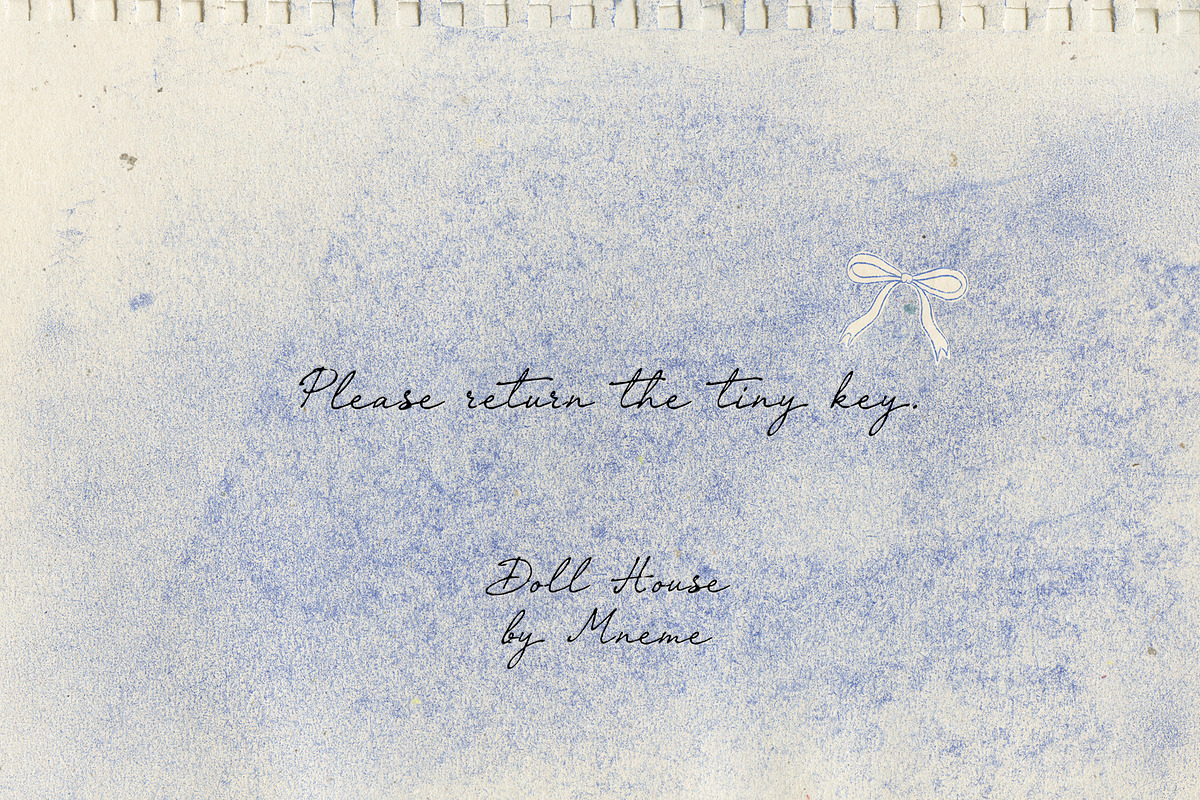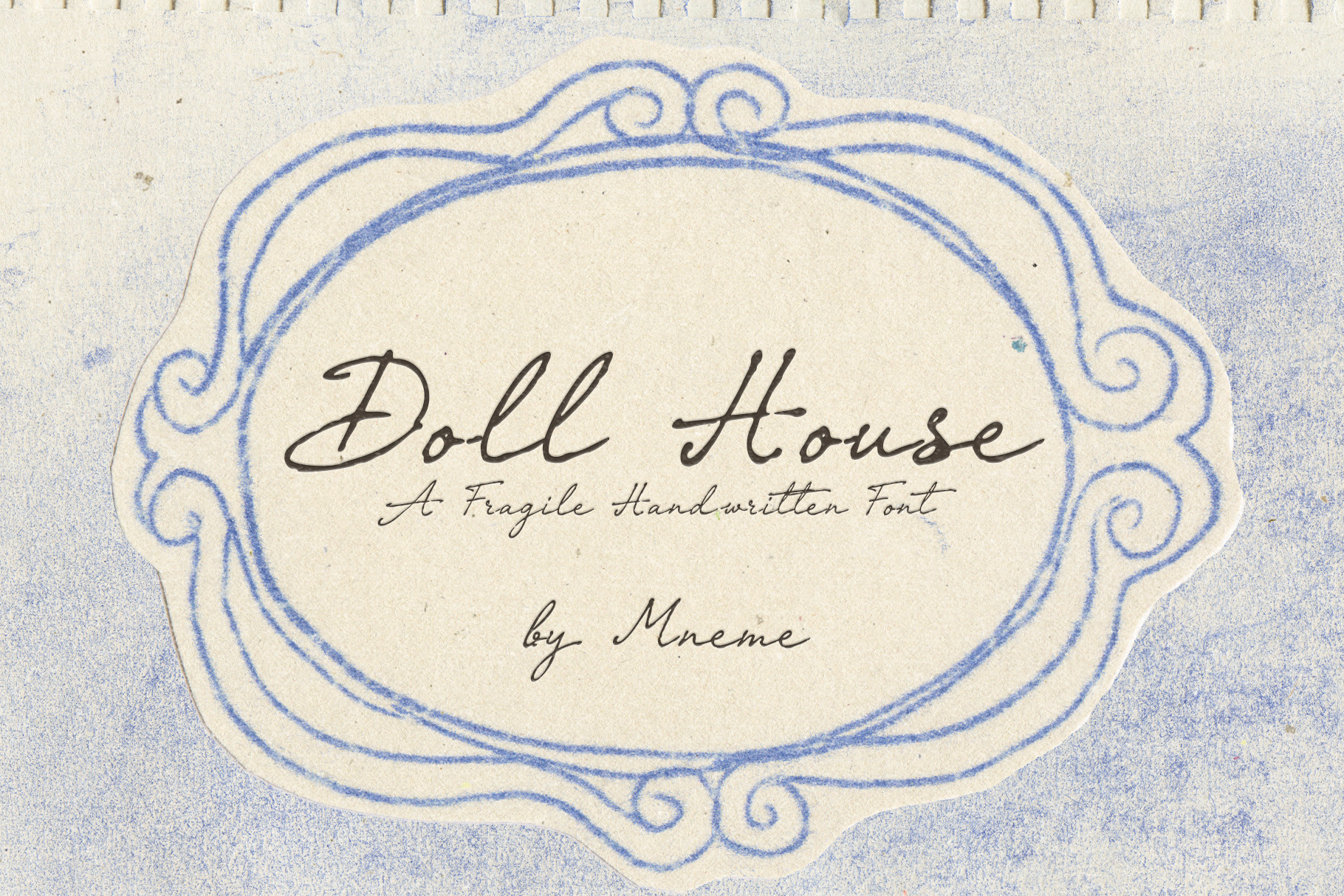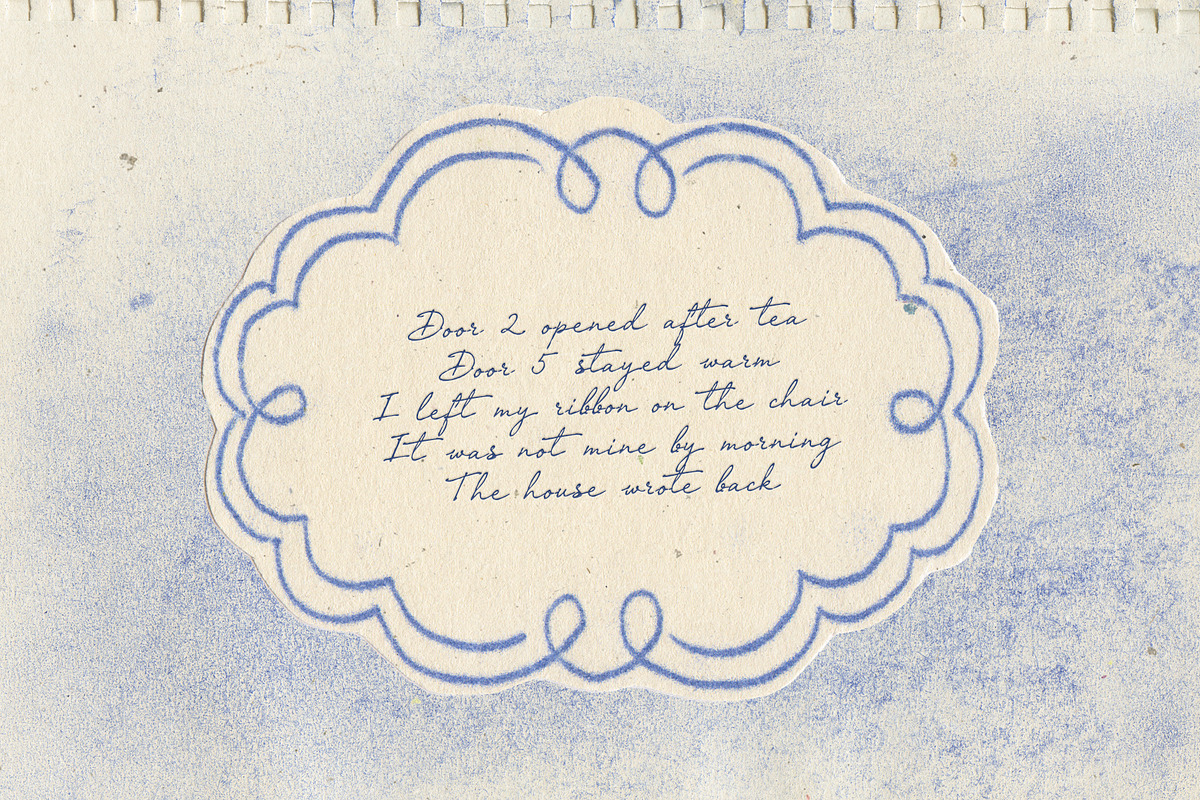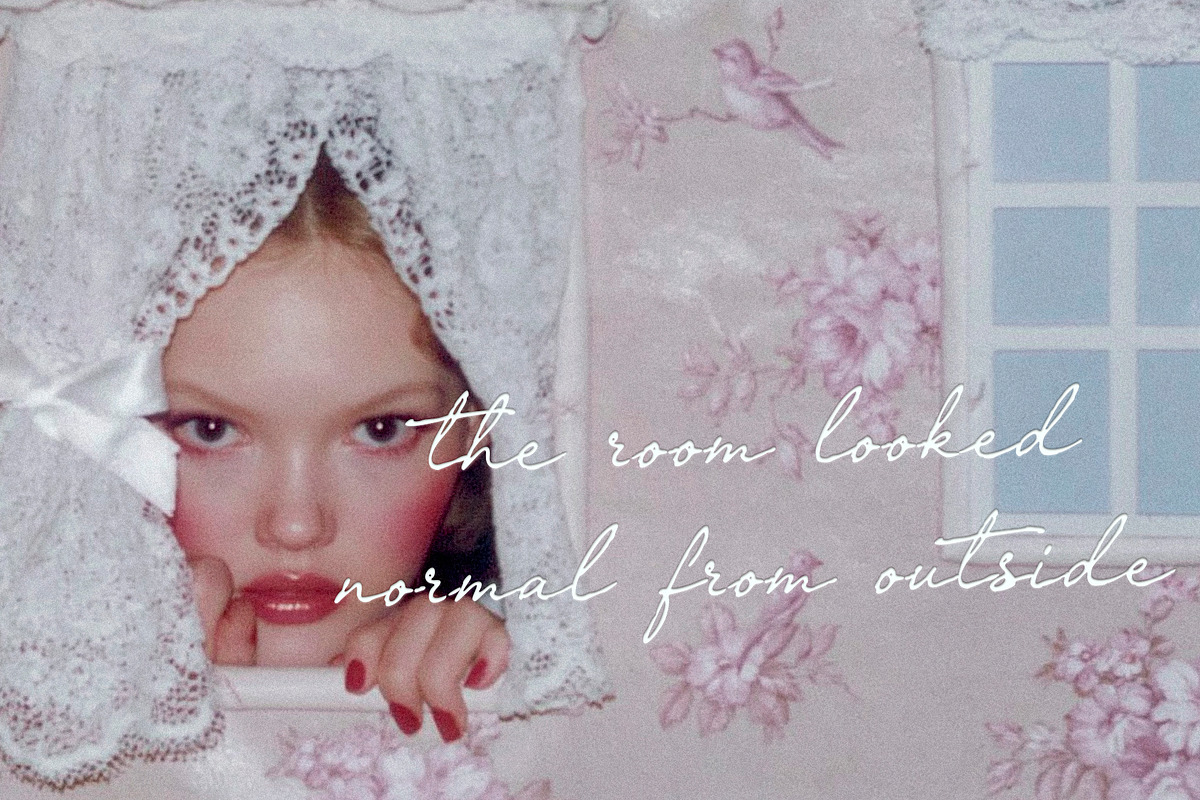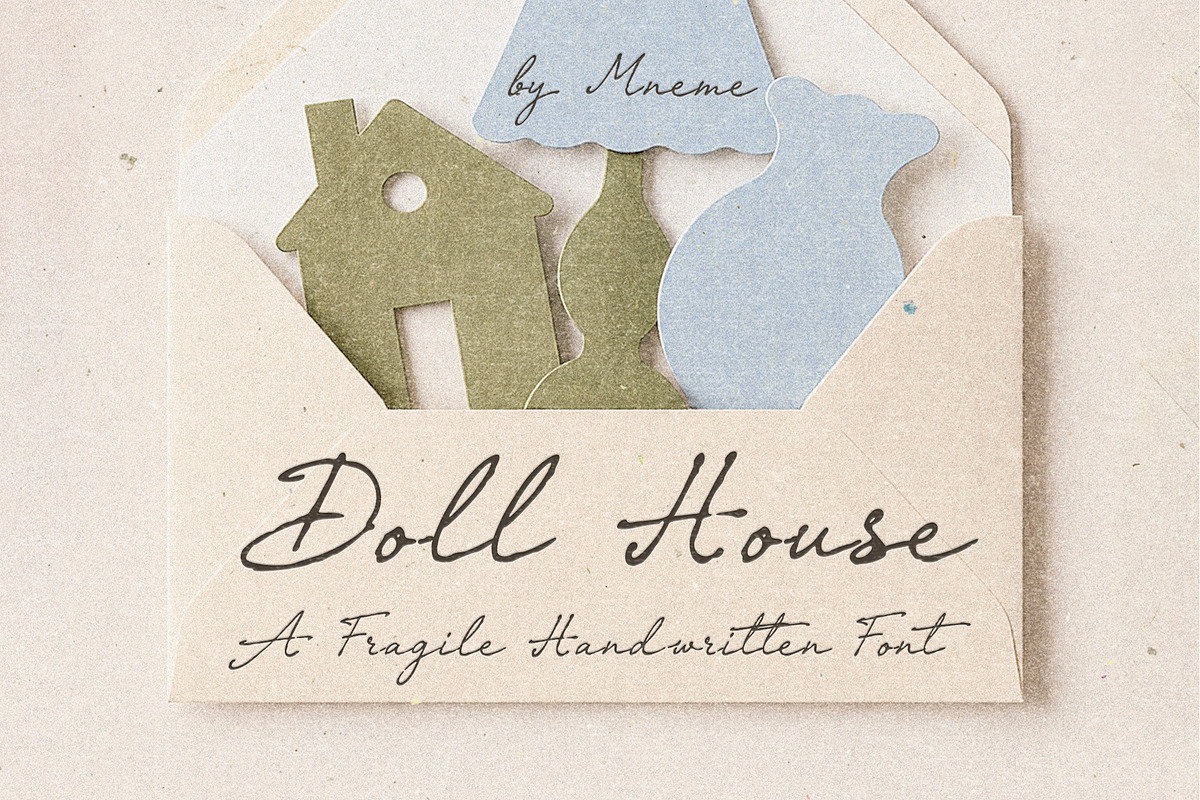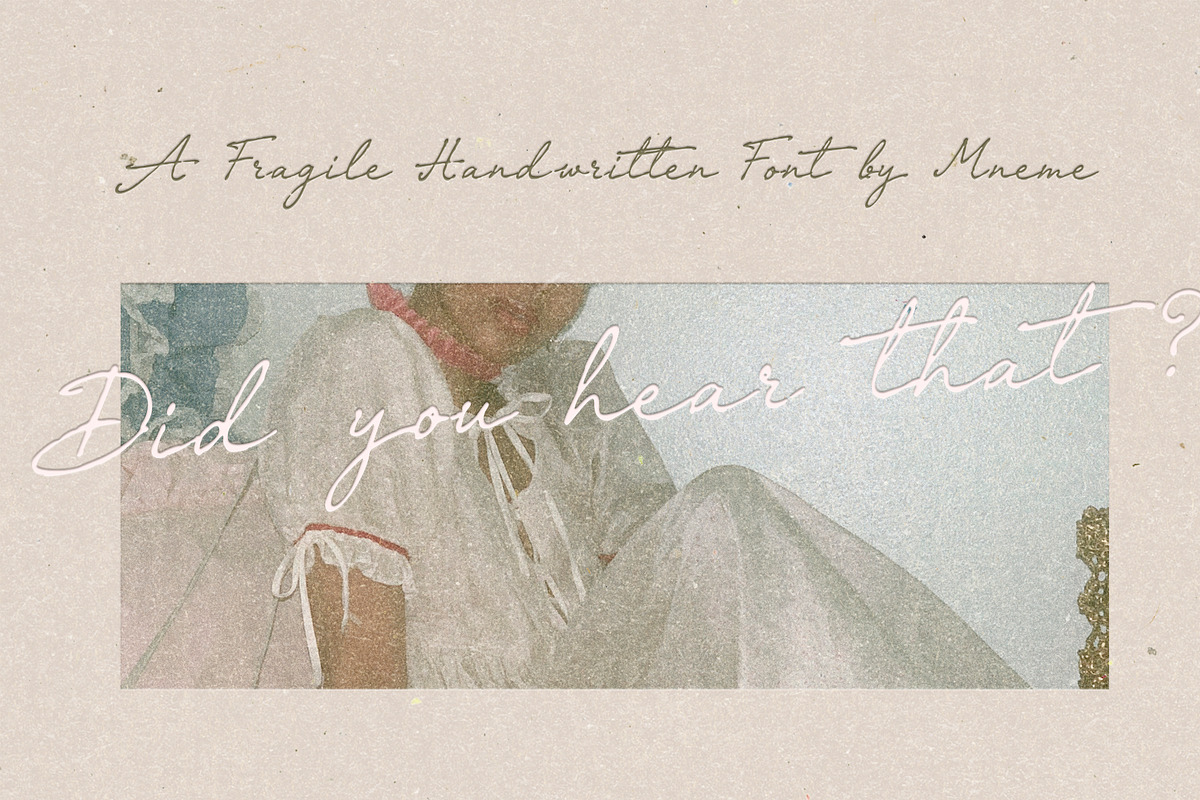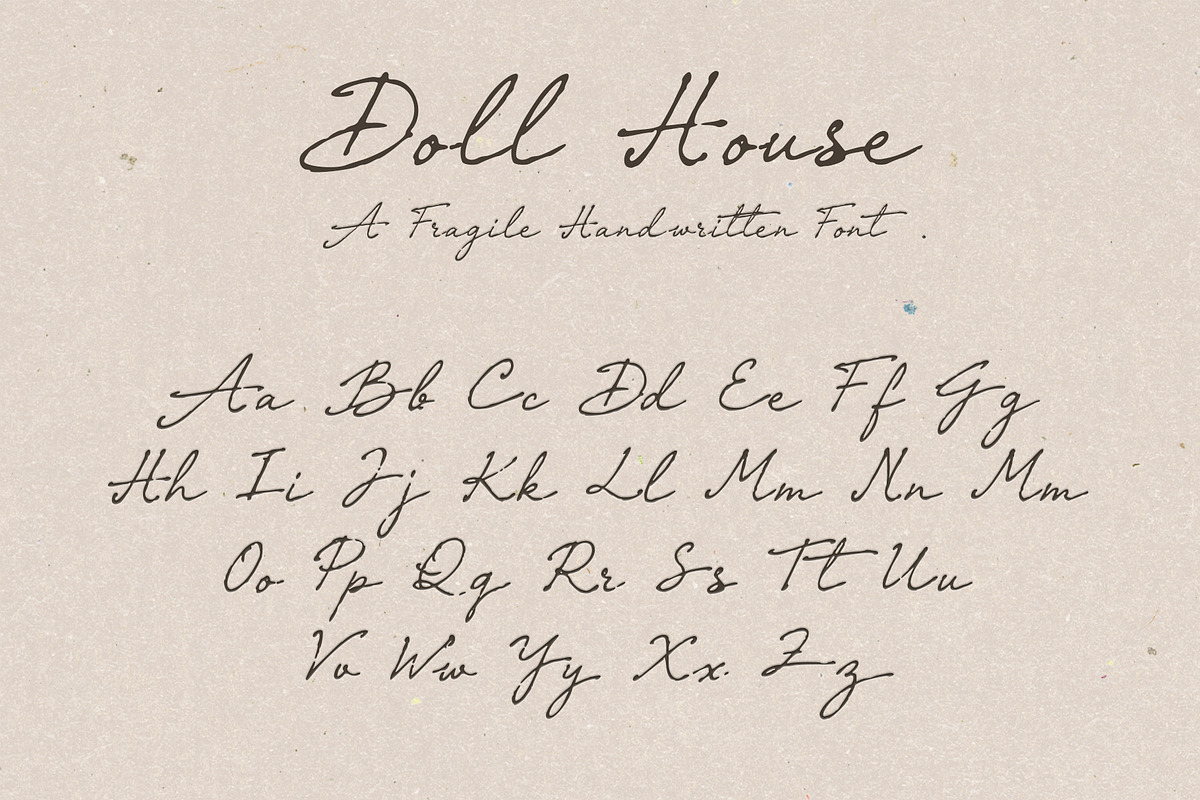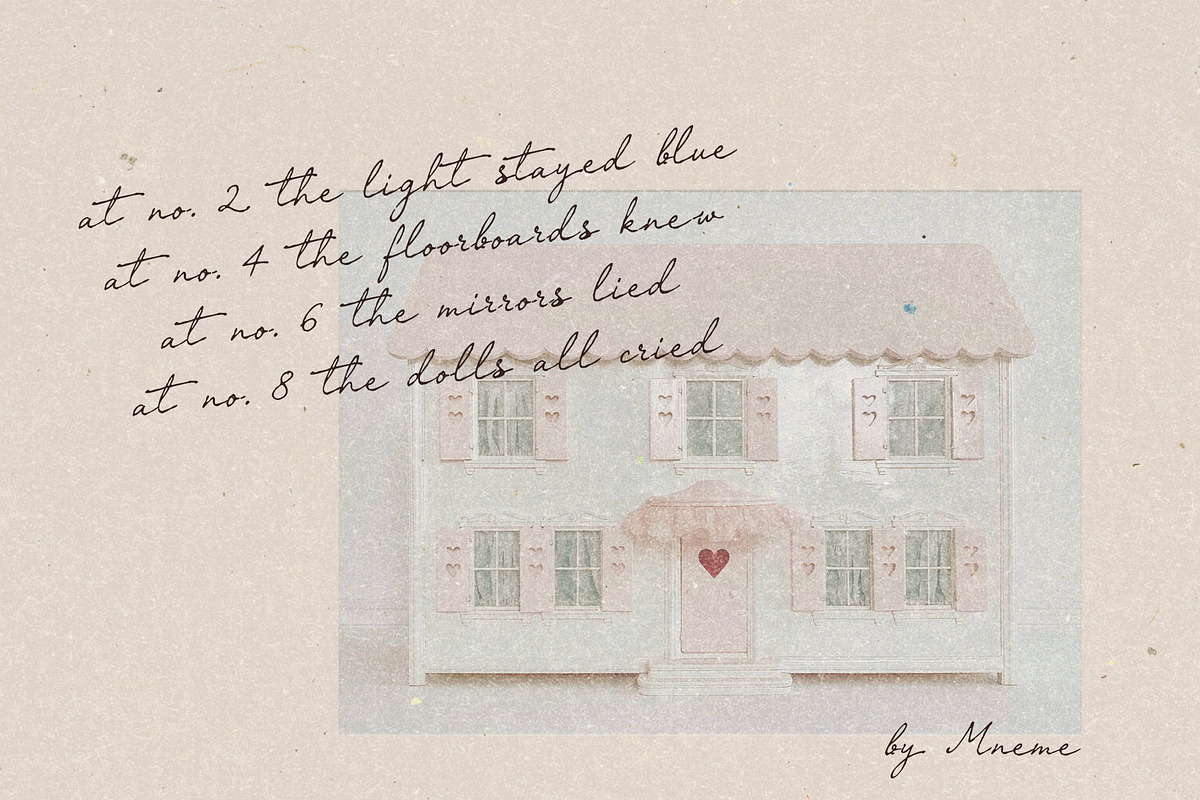
Doll House - Handwritten Font
Doll House is a delicate handwritten font with thin uneven letters, narrow shapes, and a quiet little tension in every line. It feels like a note left on a tiny table, a page from an old diary, or handwriting found inside a room where everything looks normal until you look twice.